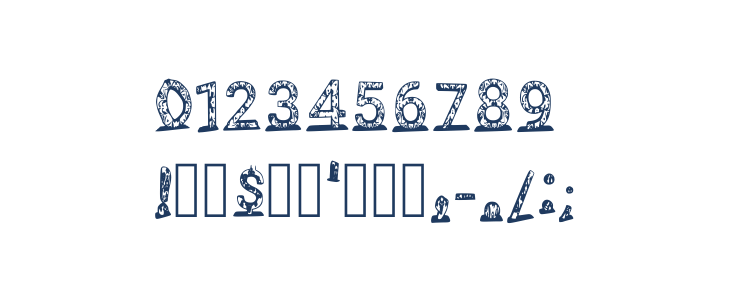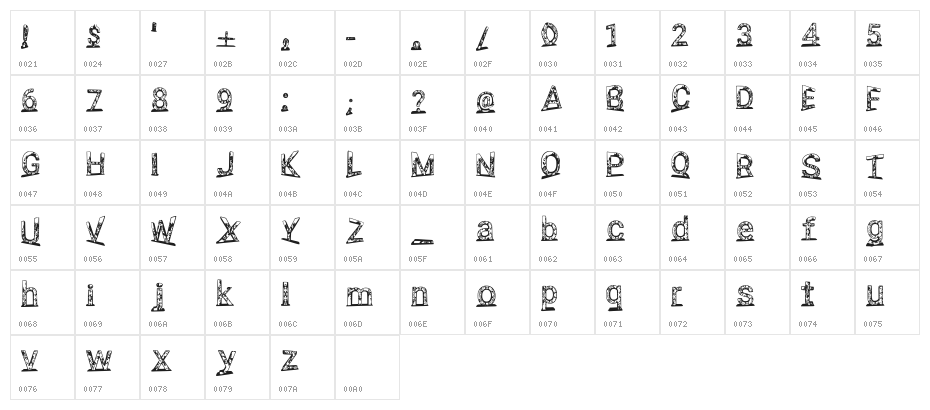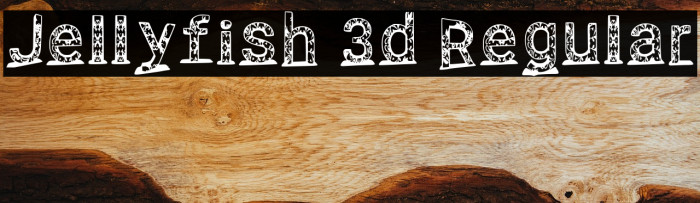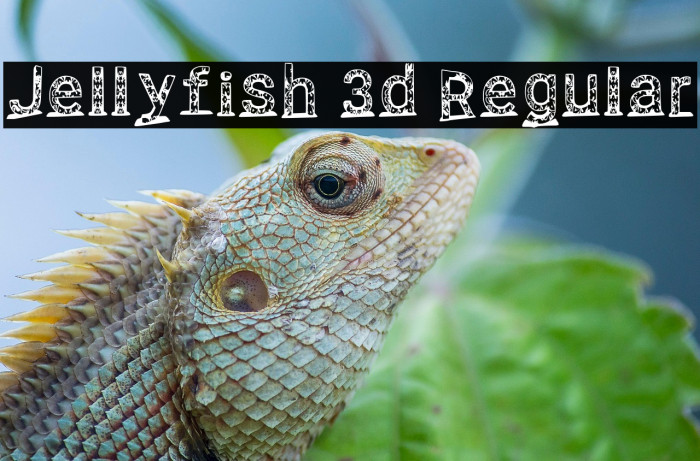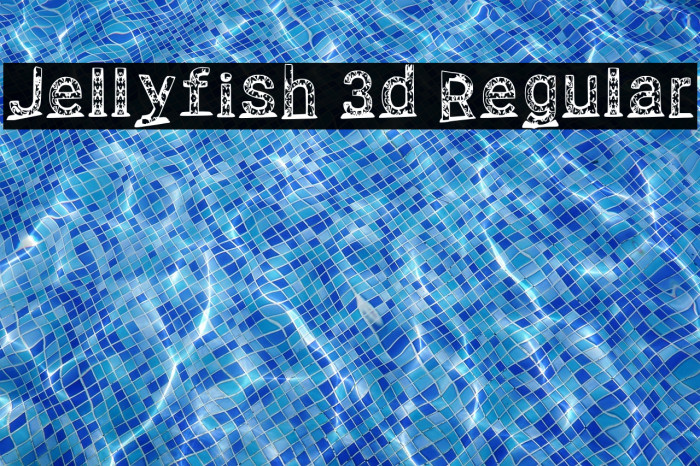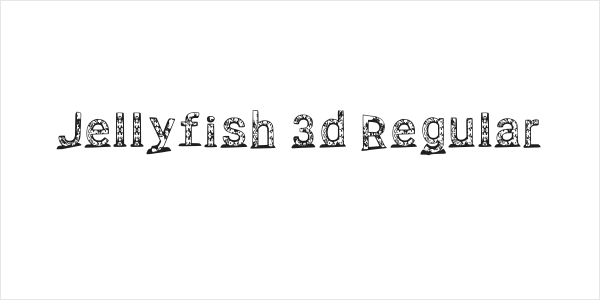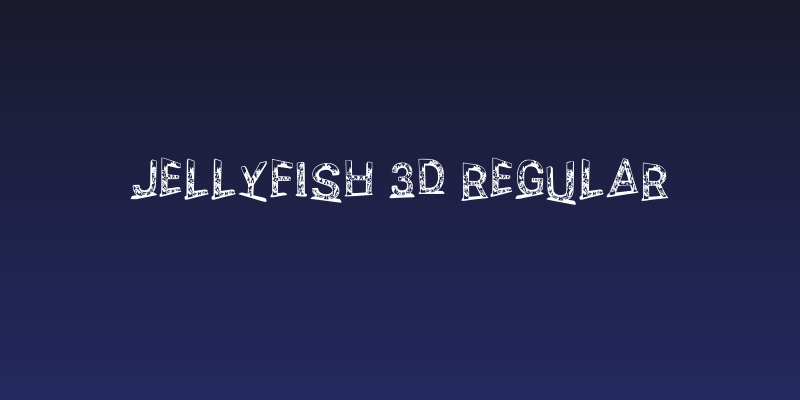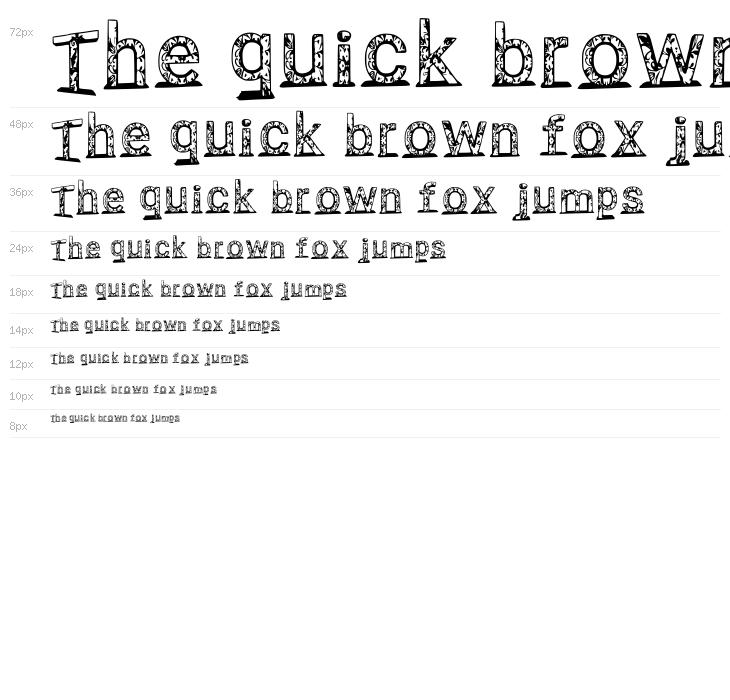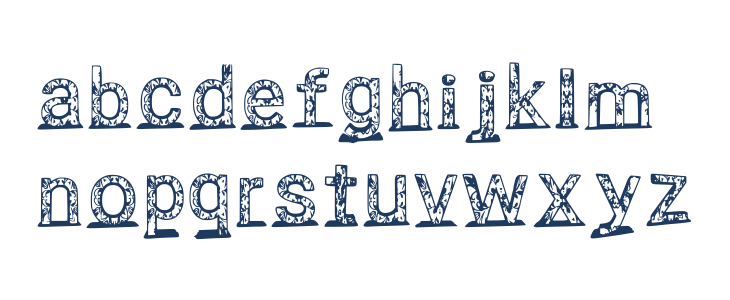
Jellyfish 3d Regular Font
Jellyfish 3d Regular Description
This font features a playful and whimsical design, with each character filled with intricate jellyfish-like patterns. The letters have a bold and chunky appearance, making them stand out with a unique 3D effect. The playful nature of the font is enhanced by the detailed patterns within each letter, creating a sense of movement and fluidity. The characters are well-defined, with a consistent style across uppercase, lowercase, numbers, and special symbols. This font is ideal for projects that require a fun and engaging visual element.